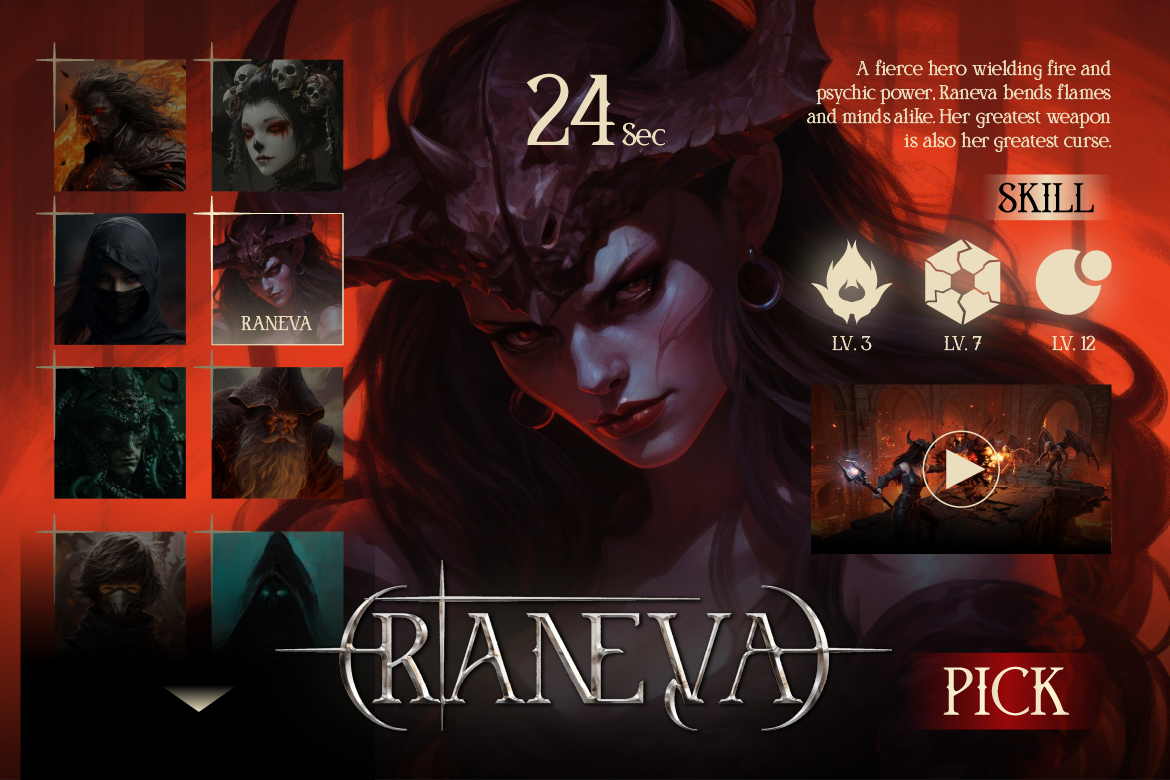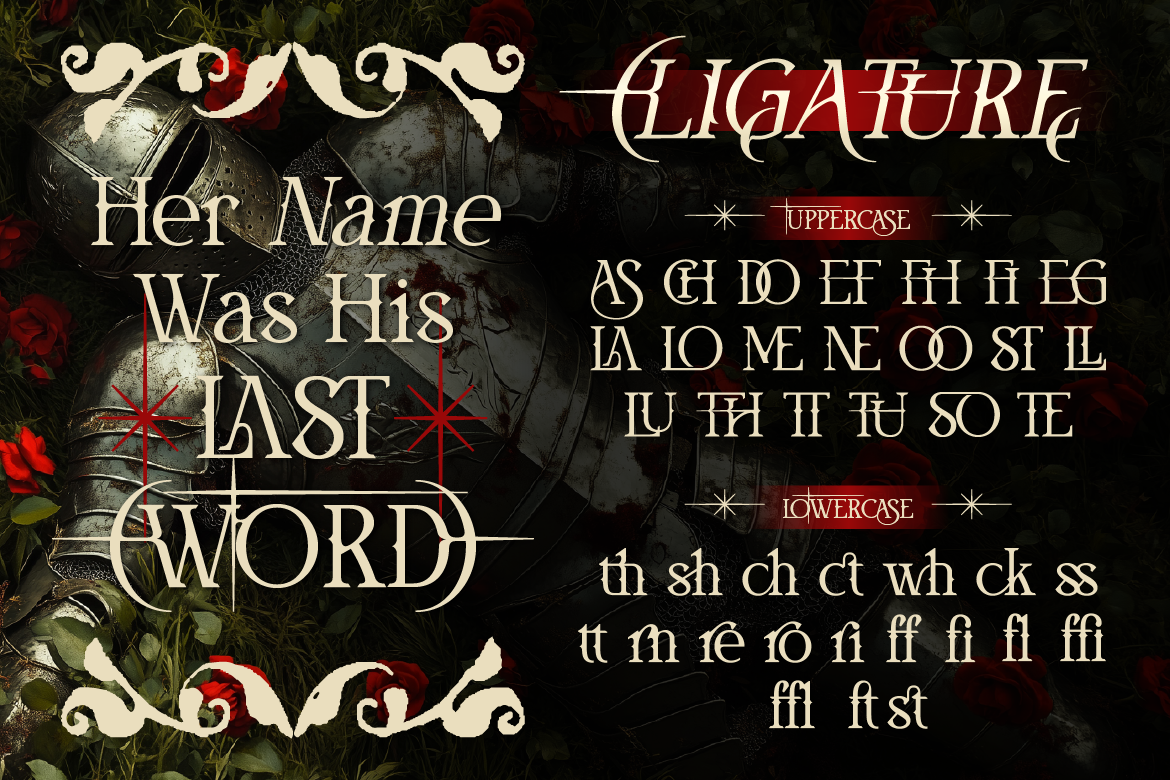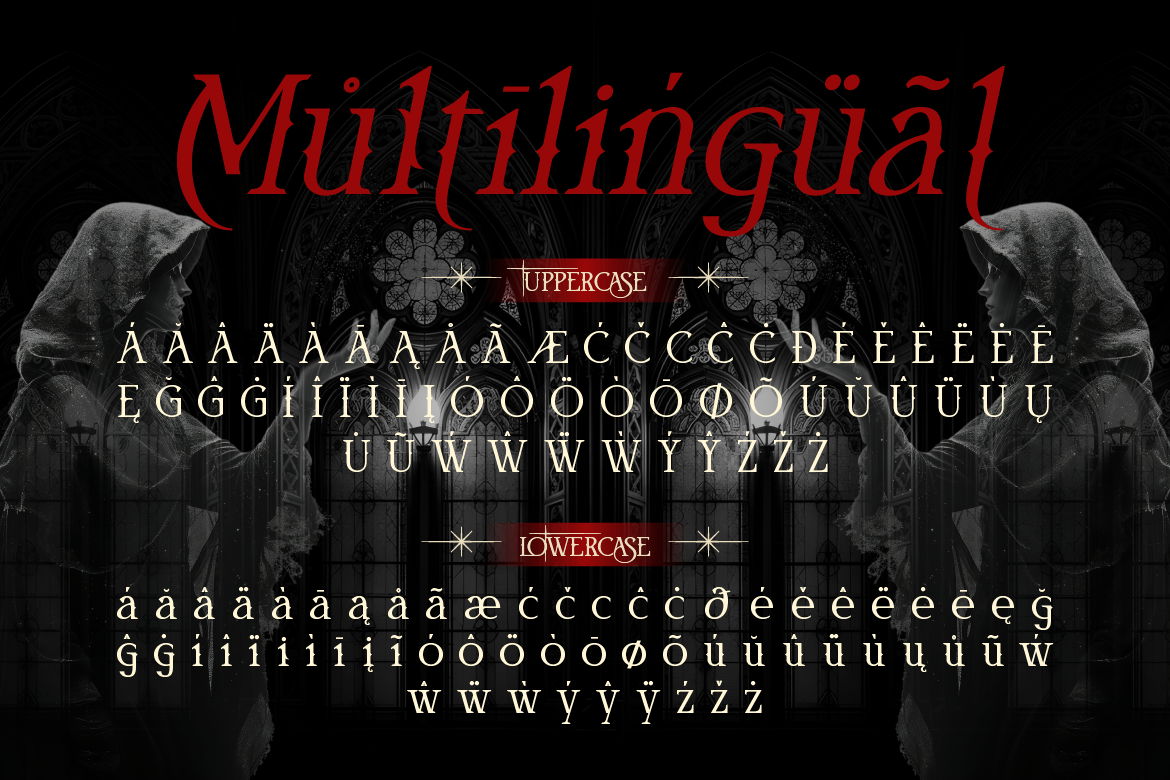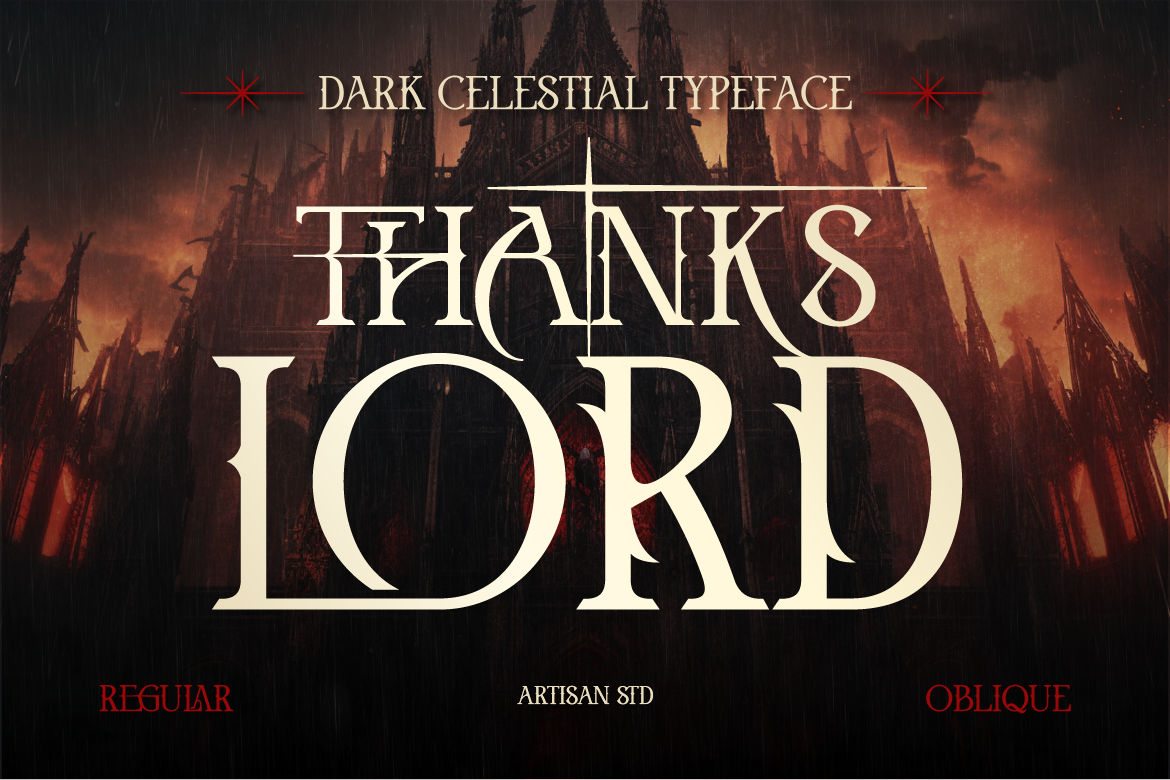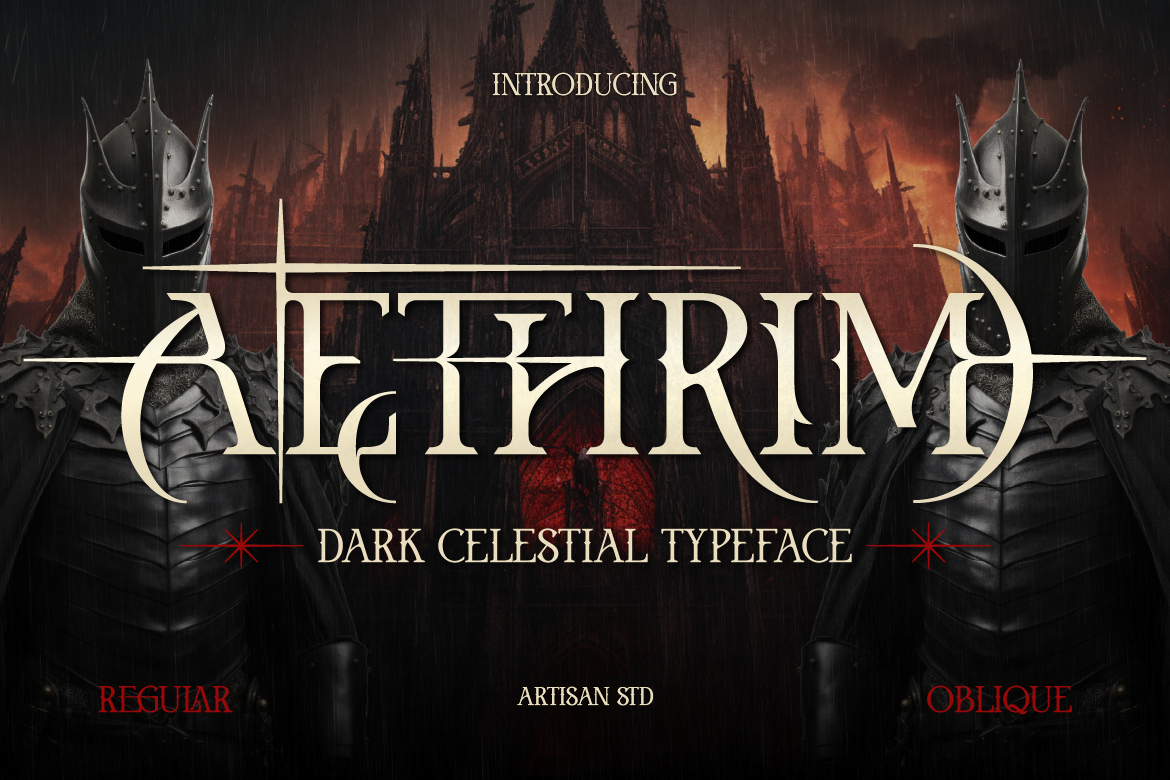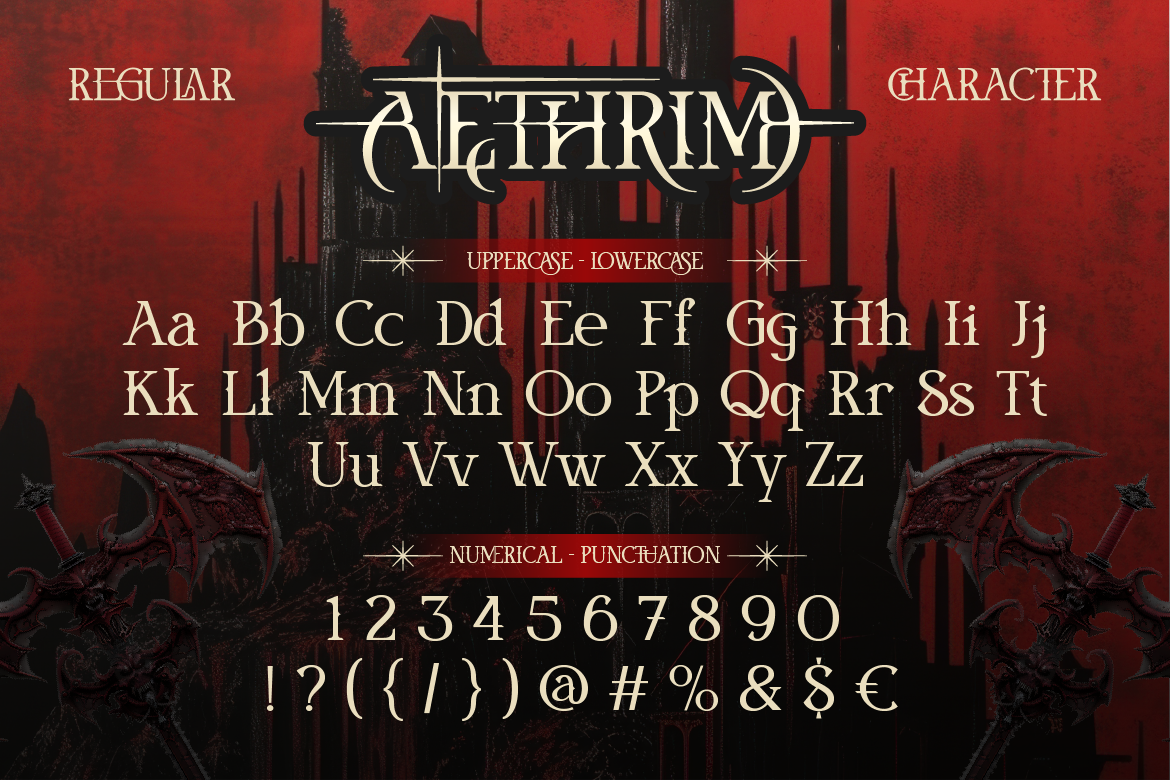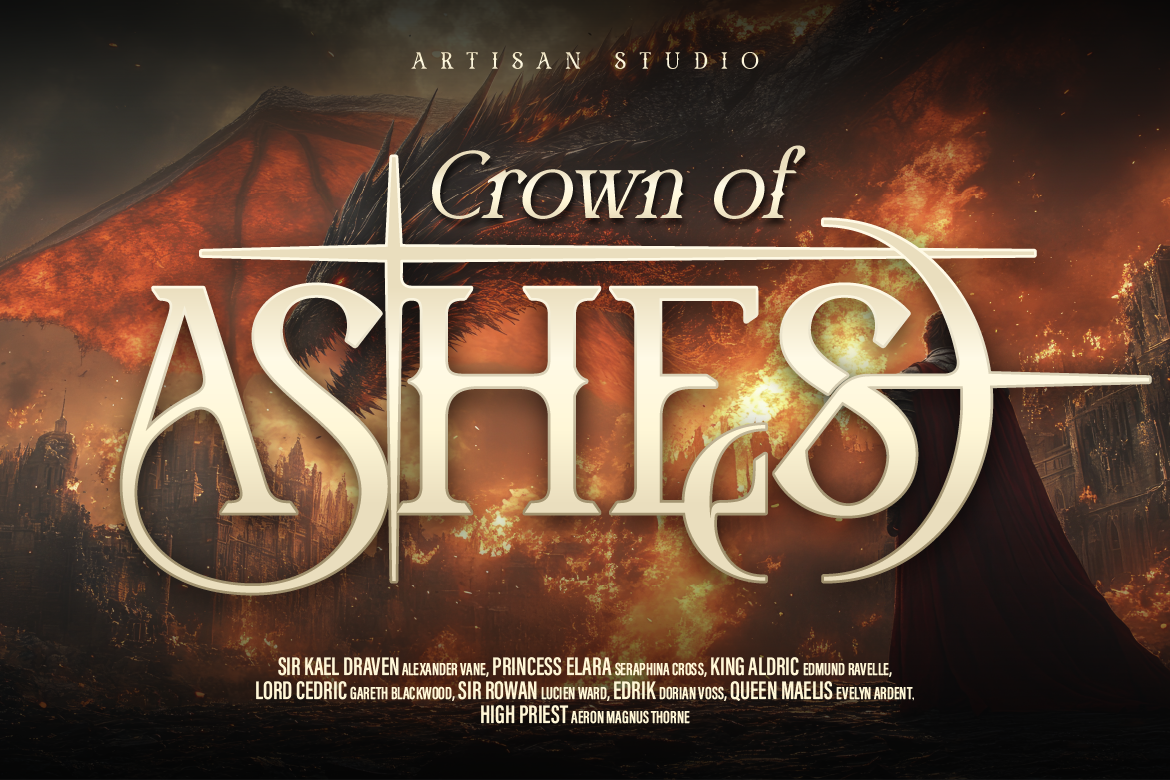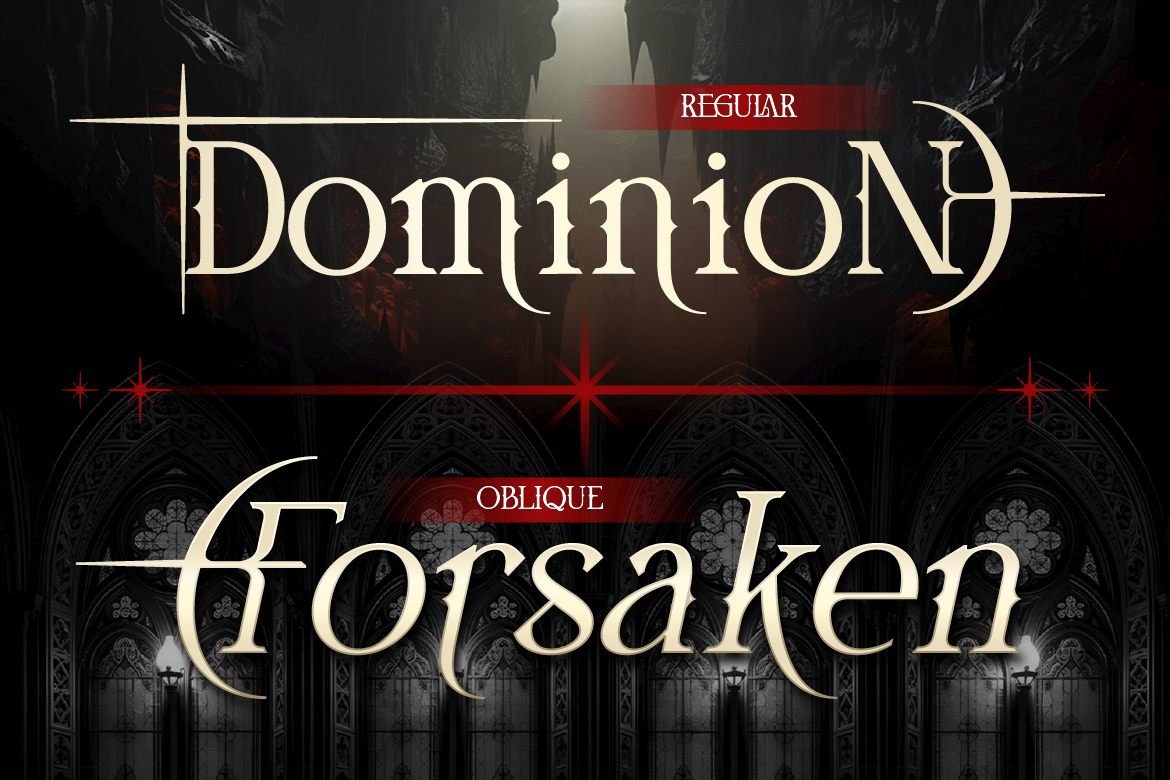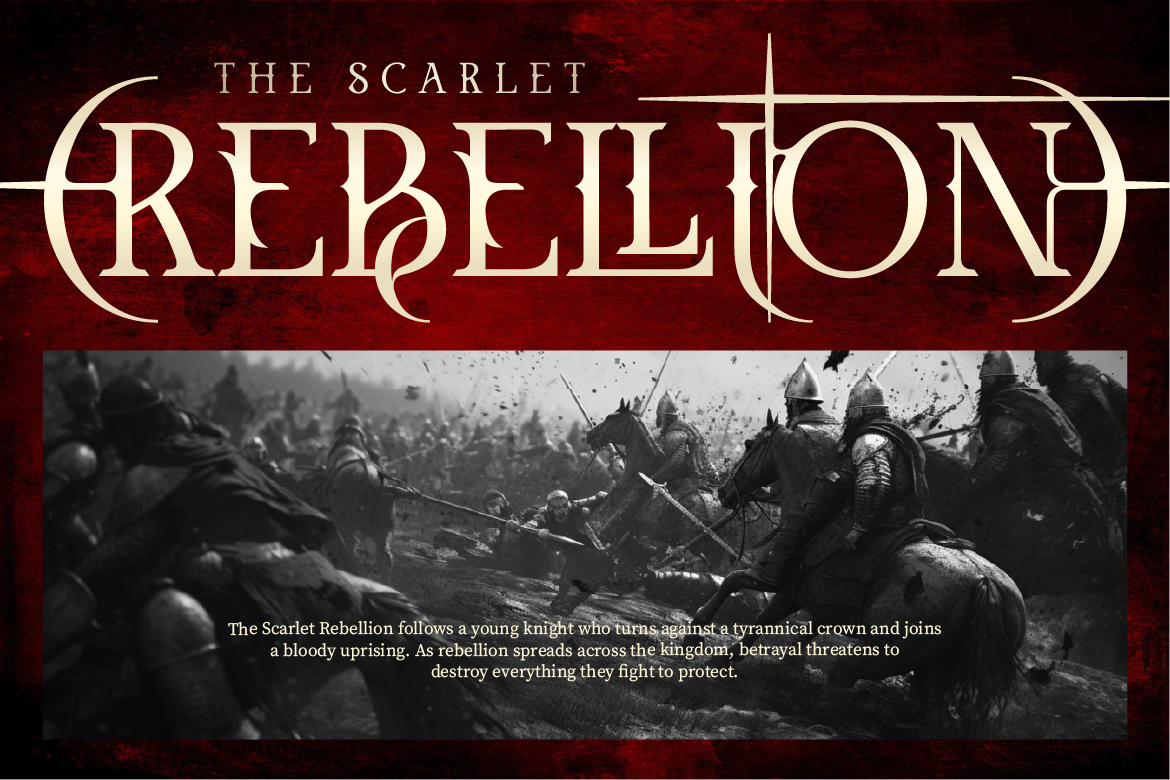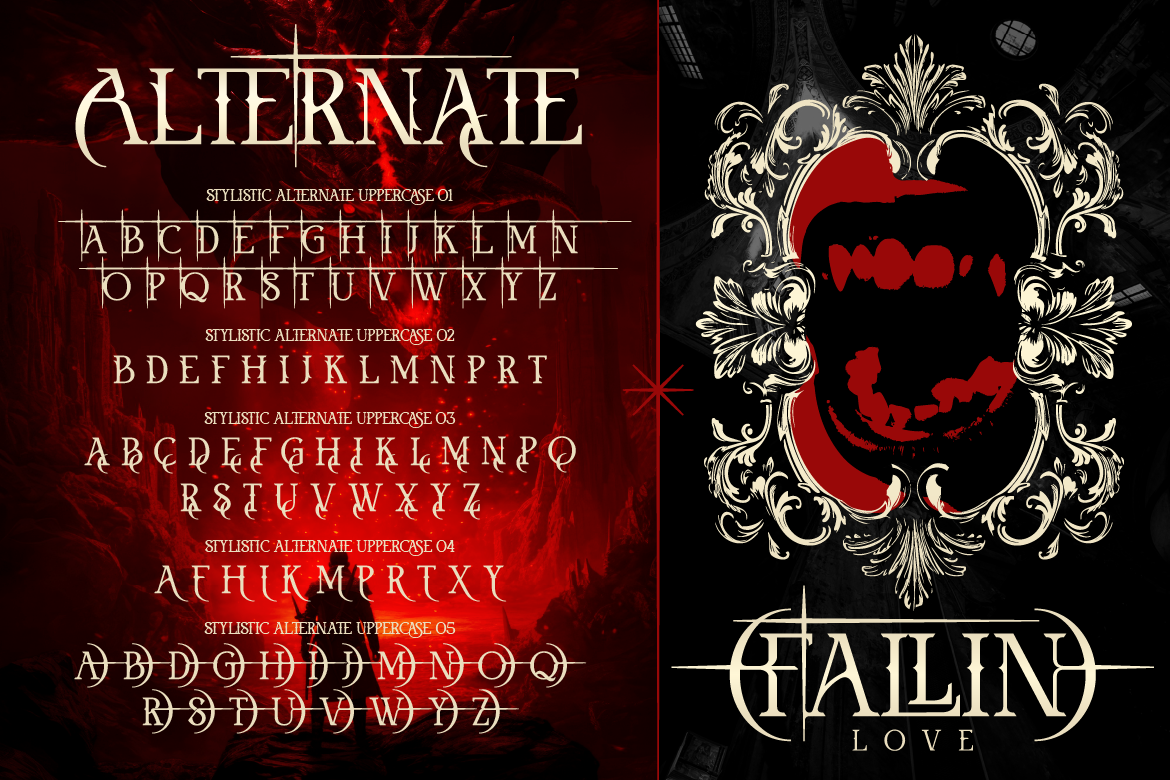
Aethrim dark celestial typeface header with armored black knights background by Artisan Font
Aethrim regular character map displaying uppercase lowercase letters numbers and dagger details
Crown of Ashes movie title written in Aethrim font over fiery dragon background
Dominion written in Aethrim Regular and Forsaken in Aethrim Oblique dark fantasy font
The Scarlet Rebellion banner written in Aethrim gothic typeface over medieval battle scene
Aethrim stylistic alternate swashes displayed next to gothic vampiric lips illustration
Infernal Reign album title in Aethrim dark serif font on red vinyl record sleeve mockup
Beyond King Malthuf dark fantasy poster next to Aethrim lowercase alternate character set
Dark fantasy RPG game UI screen showing Raneva character name written in Aethrim font
Her Name with His Last Word poster next to Aethrim ligature character set
Multilingual character set specimen for Aethrim font framed by hooded dark priestesses
Aethrim – Dark Fantasy Serif Font
Regular
Oblique
Description
Step into the shadows with Aethrim, a dark celestial display typeface handcrafted by Artisan Font. Designed with sharp dagger-like serifs, sweeping crescent loops, and dramatic cross flourishes, Aethrim embodies the mystery of gothic fantasy, dark romance, and medieval folklore.
This versatile serif font comes with two distinct styles—Regular and Oblique—allowing you to create striking visual contrast across epic headers and cinematic layouts. Packed with extensive OpenType features, including sharp stylistic alternates and custom cross ligatures, Aethrim gives you the freedom to build custom, hand-crafted logos and book covers effortlessly.
Perfect For:
• Dark Fantasy Book Covers, Novel Headlines & Movie Posters
• RPG & Dark Fantasy Video Game UI / Character Selection Screens
• Metal Band Logos, Album Covers & Vinyl Sleeves
• Gothic Apparel, Streetwear & Dark Aesthetic Merch
• Halloween Invitations, Mystical Cards & Tarot Deck Designs